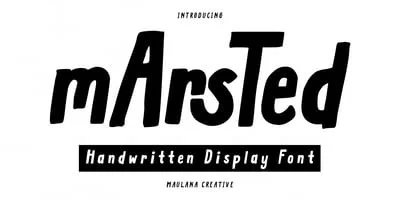
Marsted Font
Marsted Font is excellent for maritime industry branding, nautical equipment marketing, sailing club communications, coastal lifestyle campaigns, marine engineering signage, yacht club materials, harbor management systems, oceanographic research publications, maritime safety documentation, and seafaring adventure promotions.
What makes Marsted Font exciting is its authentic maritime character that perfectly captures the reliable strength and professional seamanship found in naval traditions and maritime excellence. This typeface features sturdy letterforms with nautical proportions and maritime-inspired details that evoke the dependability and precision navigation skills essential for safe ocean voyaging. The font's seafaring personality and nautical authenticity make it ideal for marine industry brands seeking to convey expertise, reliability, and the professional competence that comes from generations of maritime knowledge and ocean navigation mastery.
Marsted Font family includes seaworthy weight variations and nautical alternatives that enhance its maritime appeal while providing design flexibility for marine and coastal applications. The font features anchor-strong ligatures, maritime ornaments, and seafaring character variations that create authentic nautical atmosphere for marine and coastal branding.
Marine companies and coastal organizations consistently choose Marsted Font for projects requiring authentic maritime appeal and nautical credibility. The font's seaworthy character excels in applications targeting sailors, marine professionals, and ocean enthusiasts who appreciate genuine maritime expertise and nautical traditions. Whether you're designing for shipping companies, sailing organizations, or marine equipment manufacturers, this reliable typeface delivers the maritime authenticity and professional seamanship that resonates with audiences seeking genuine ocean expertise and the dependable navigation skills that define maritime excellence and safe seafaring traditions.